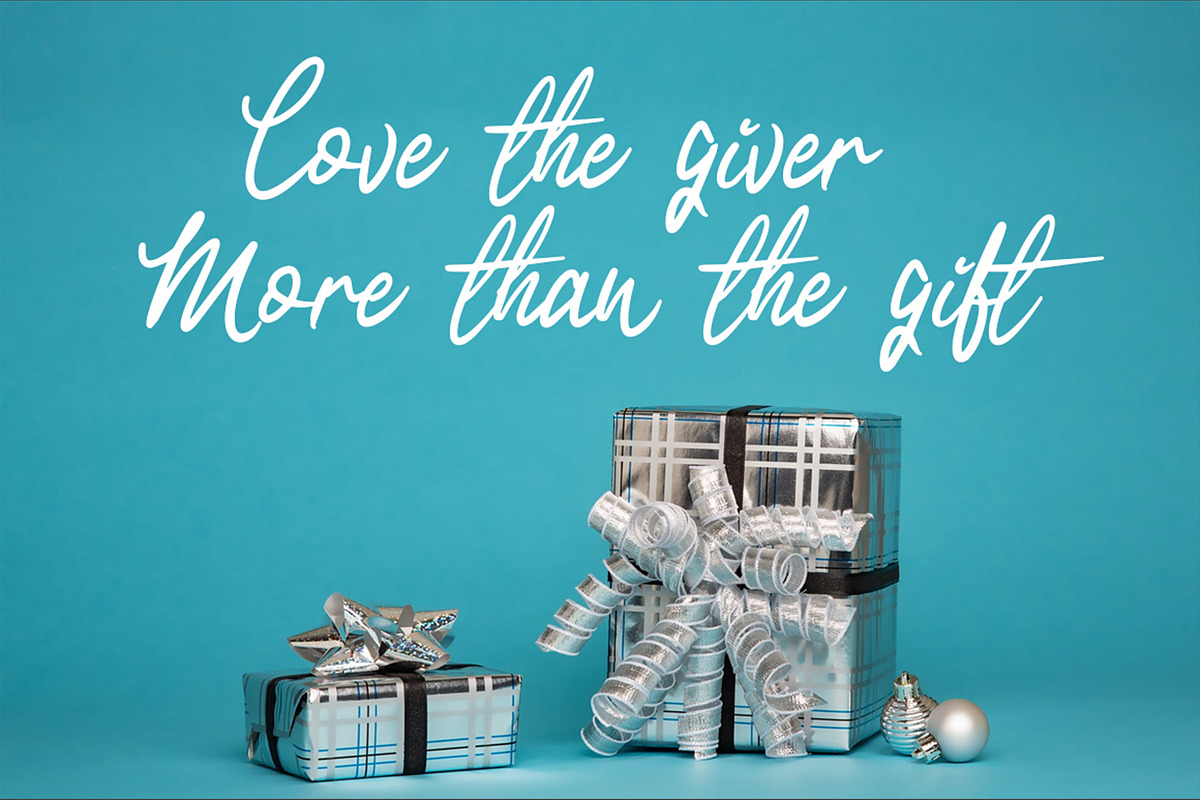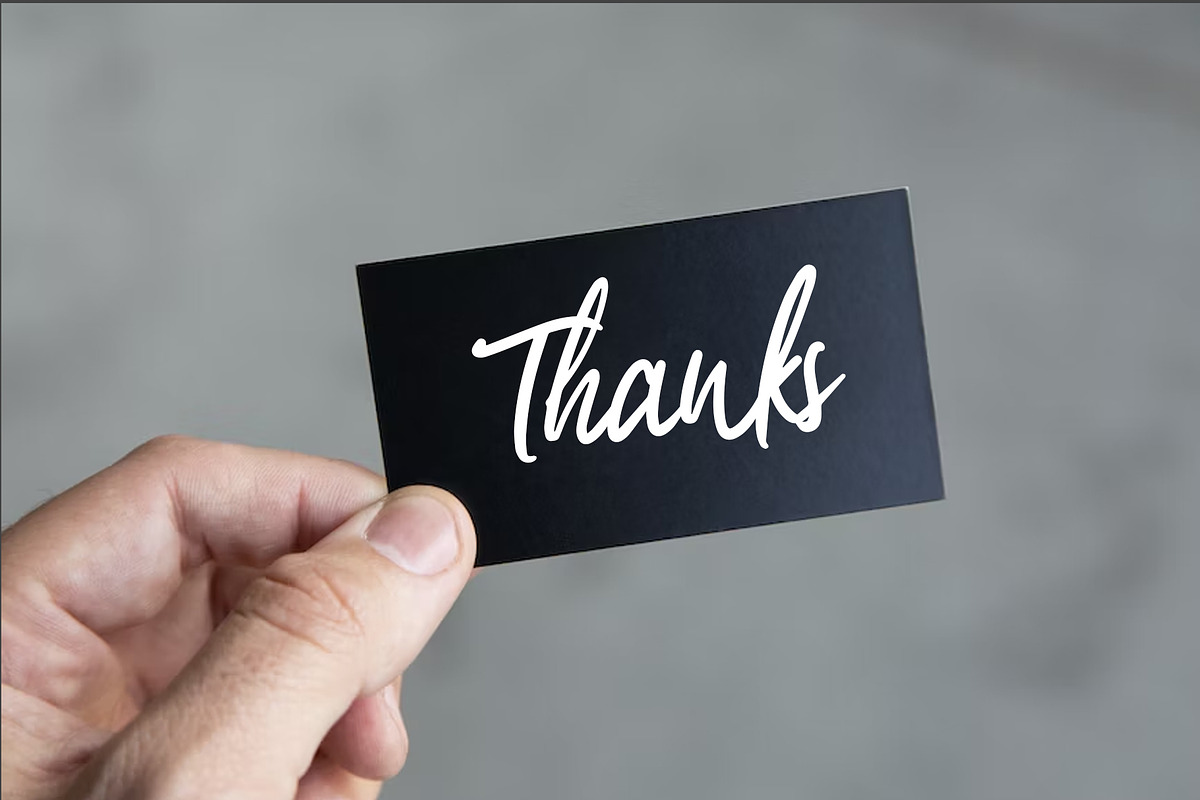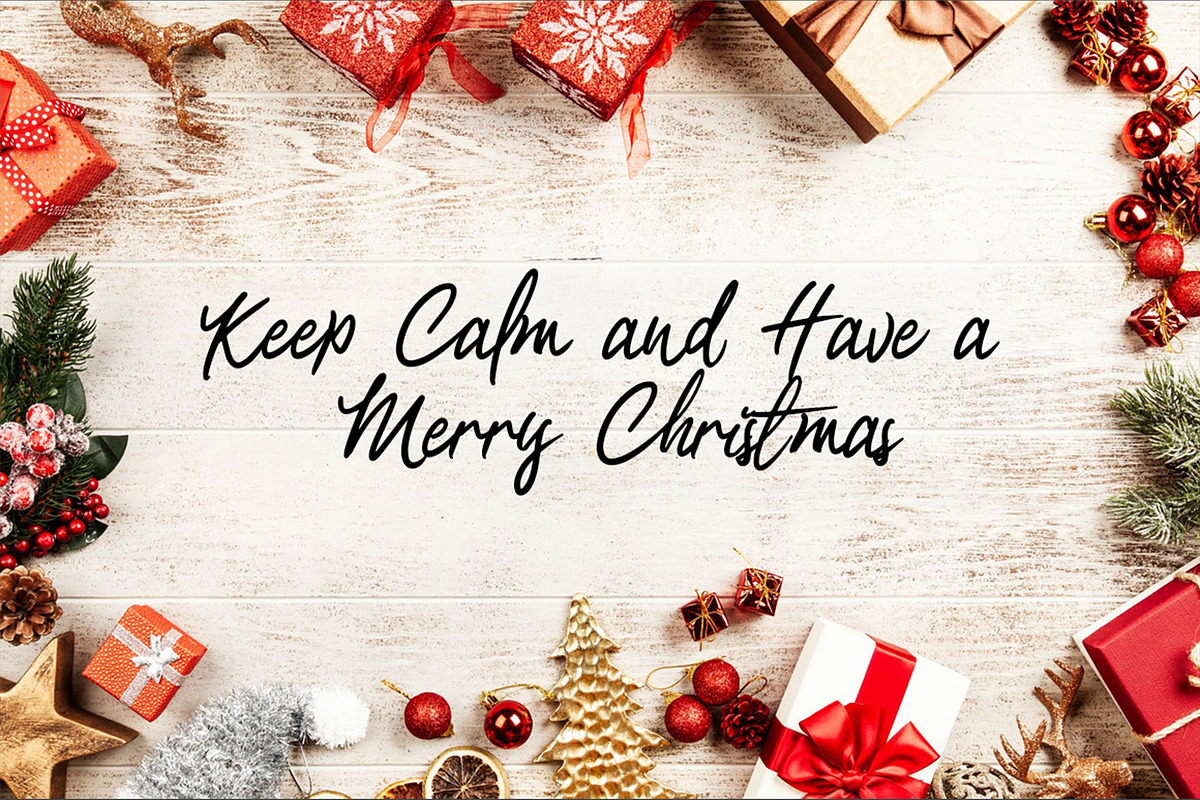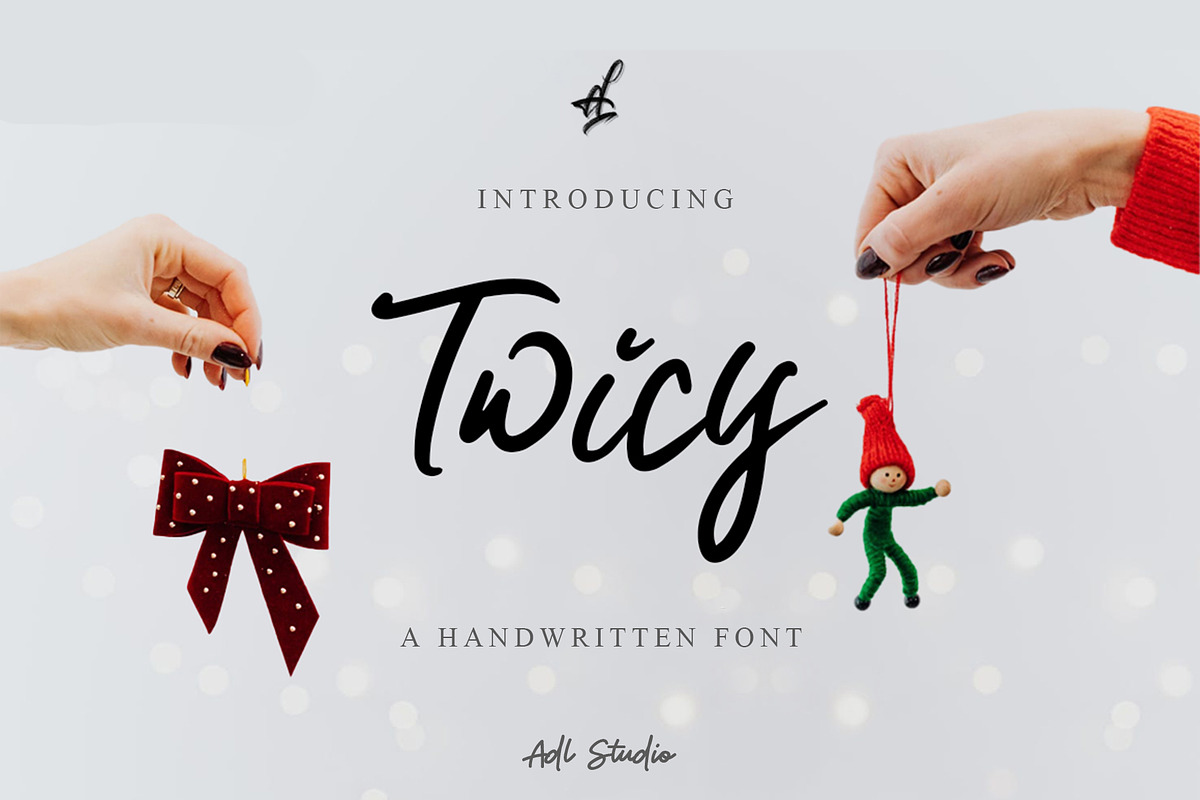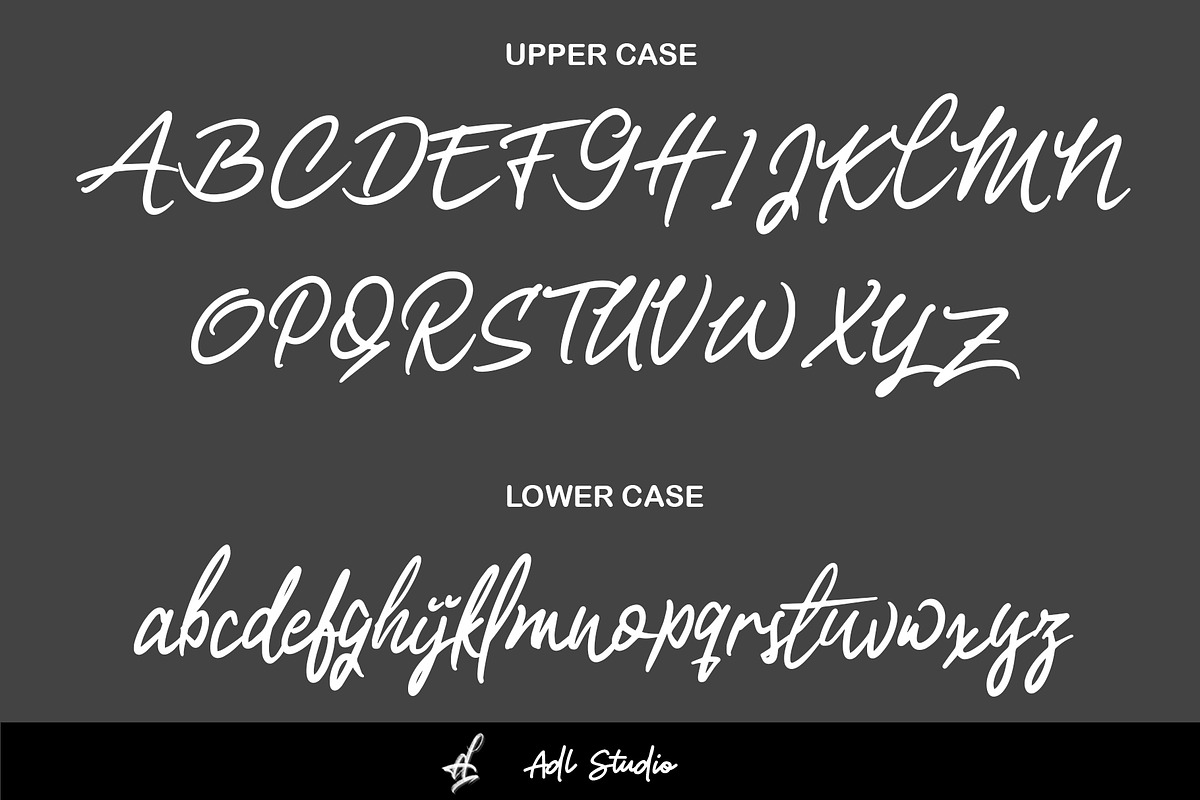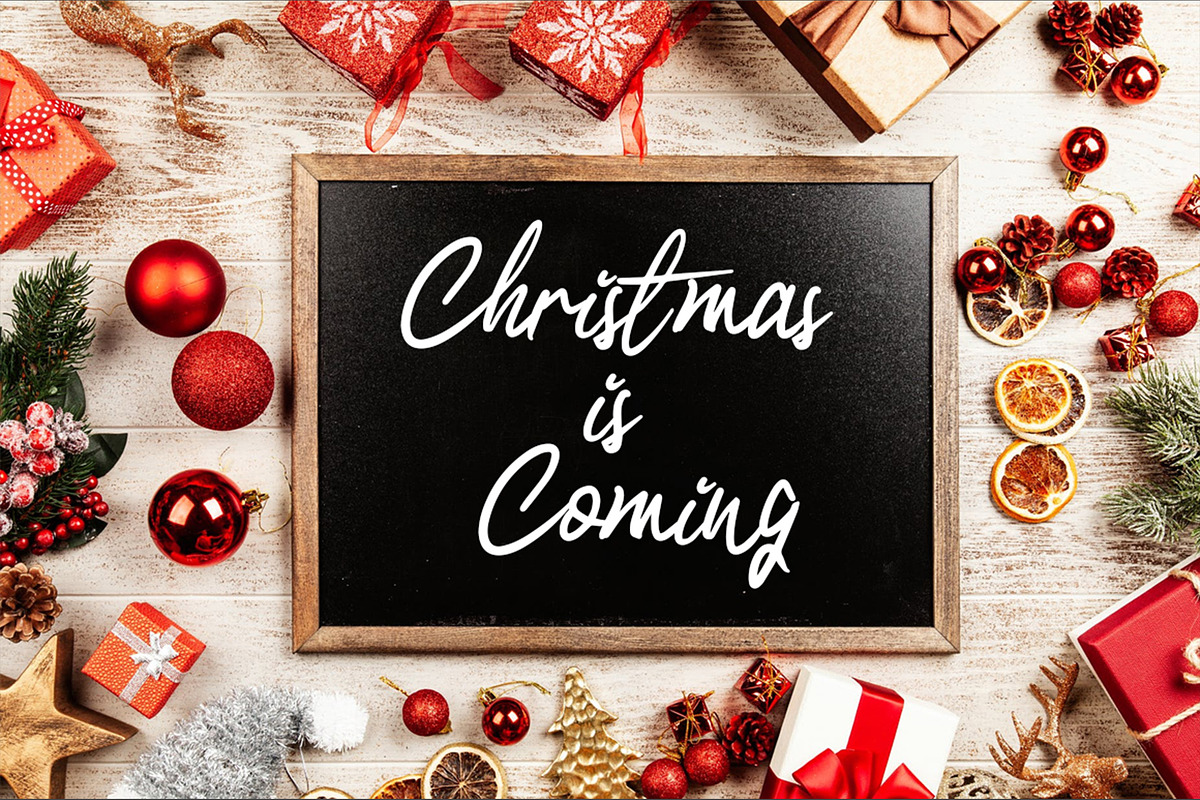
Twicy
Introducing "Twicy" - a beautifully crafted script font by ADL Studio, available exclusively on Creative Market. With its elegant and modern design, Twicy is perfect for adding a touch of sophistication to any project.
This versatile font is great for a variety of applications, including branding, logos, invitations, social media graphics, and more. The fluid strokes and unique letterforms give Twicy a distinctive character that will make your designs stand out.